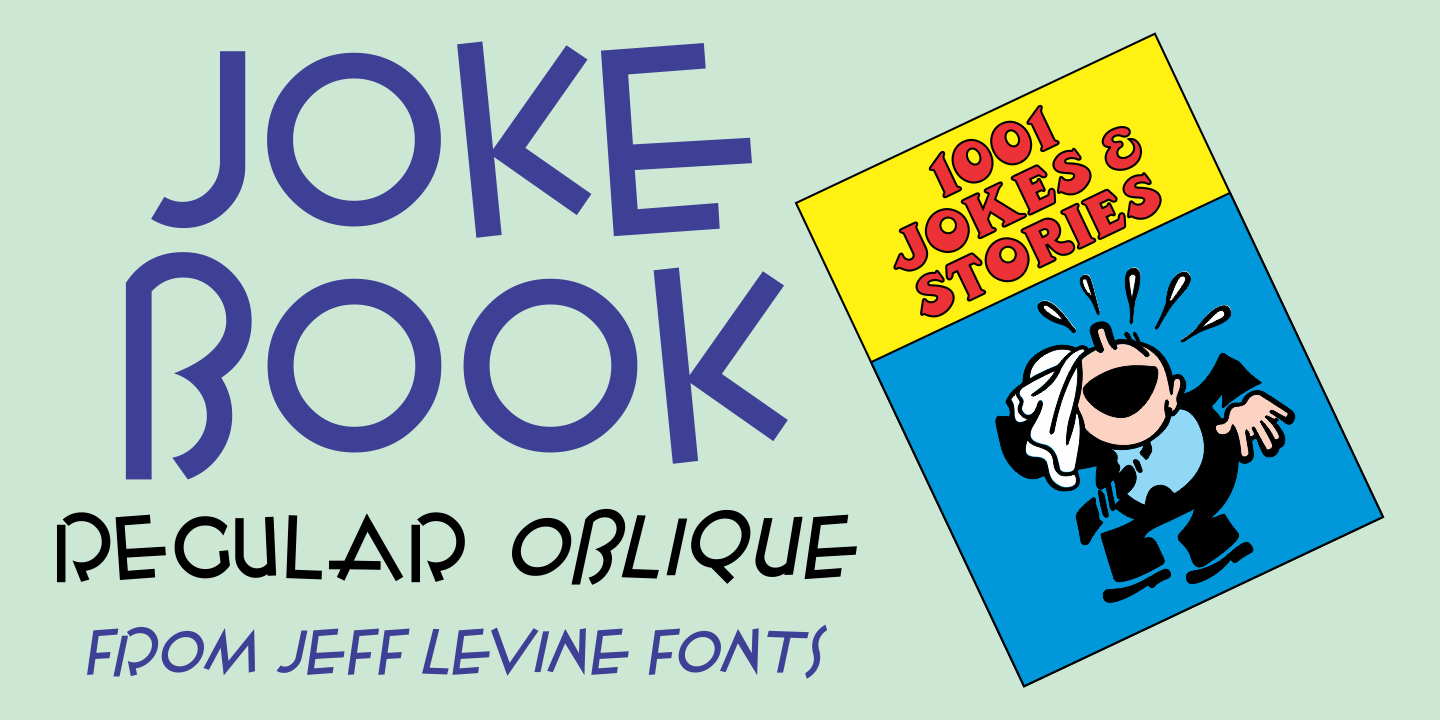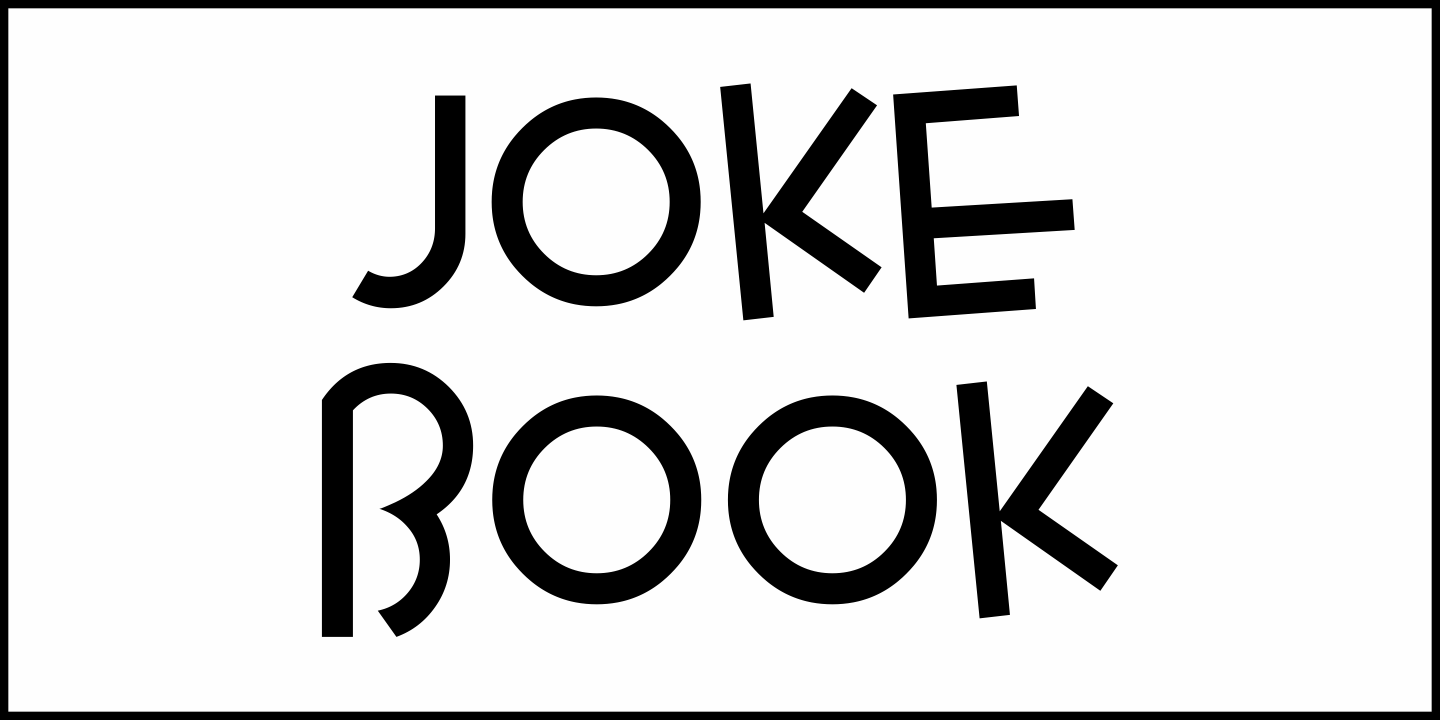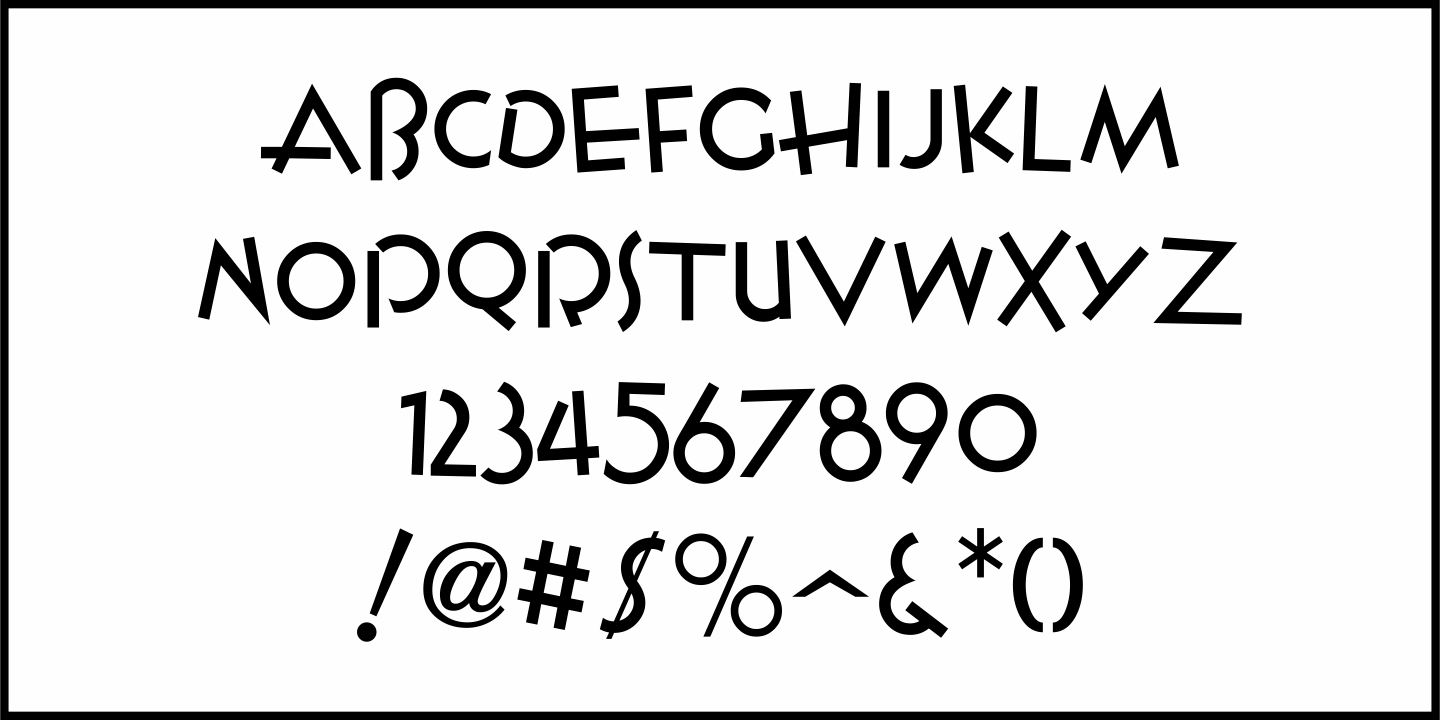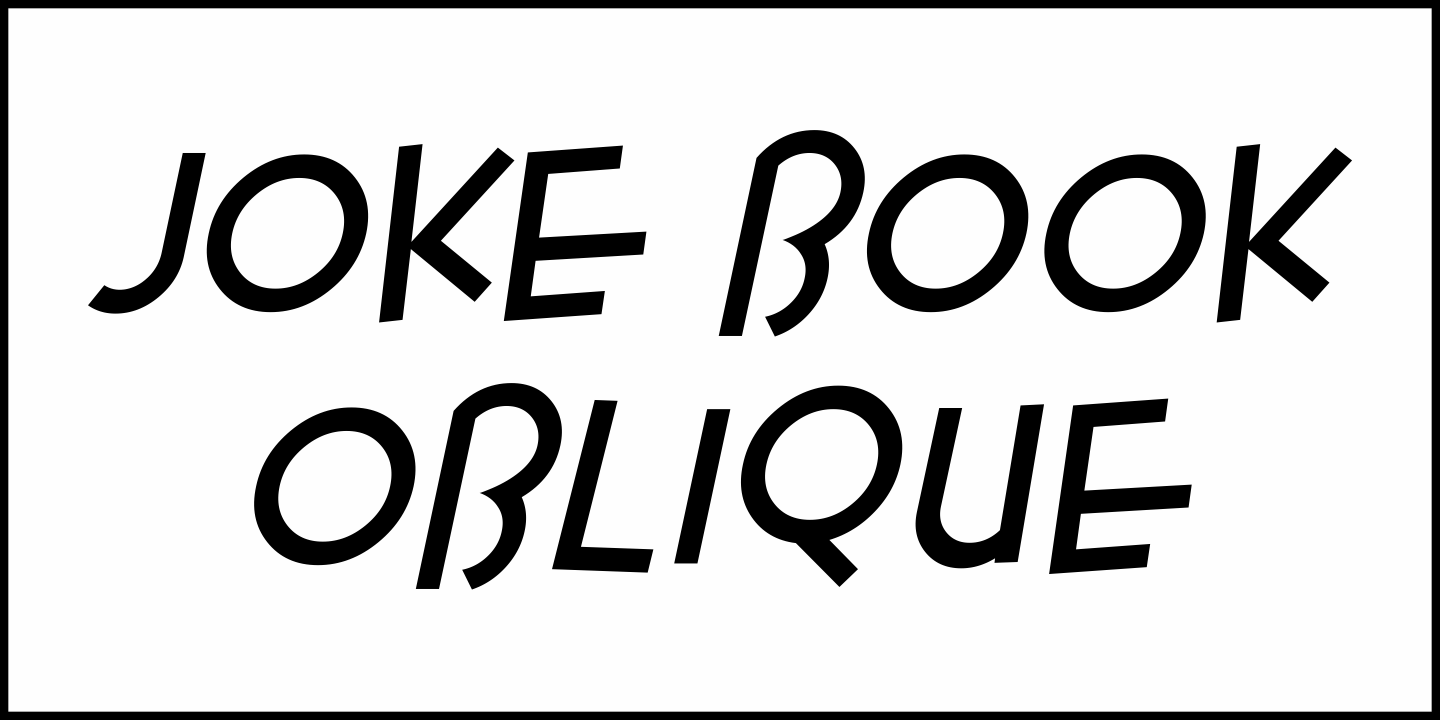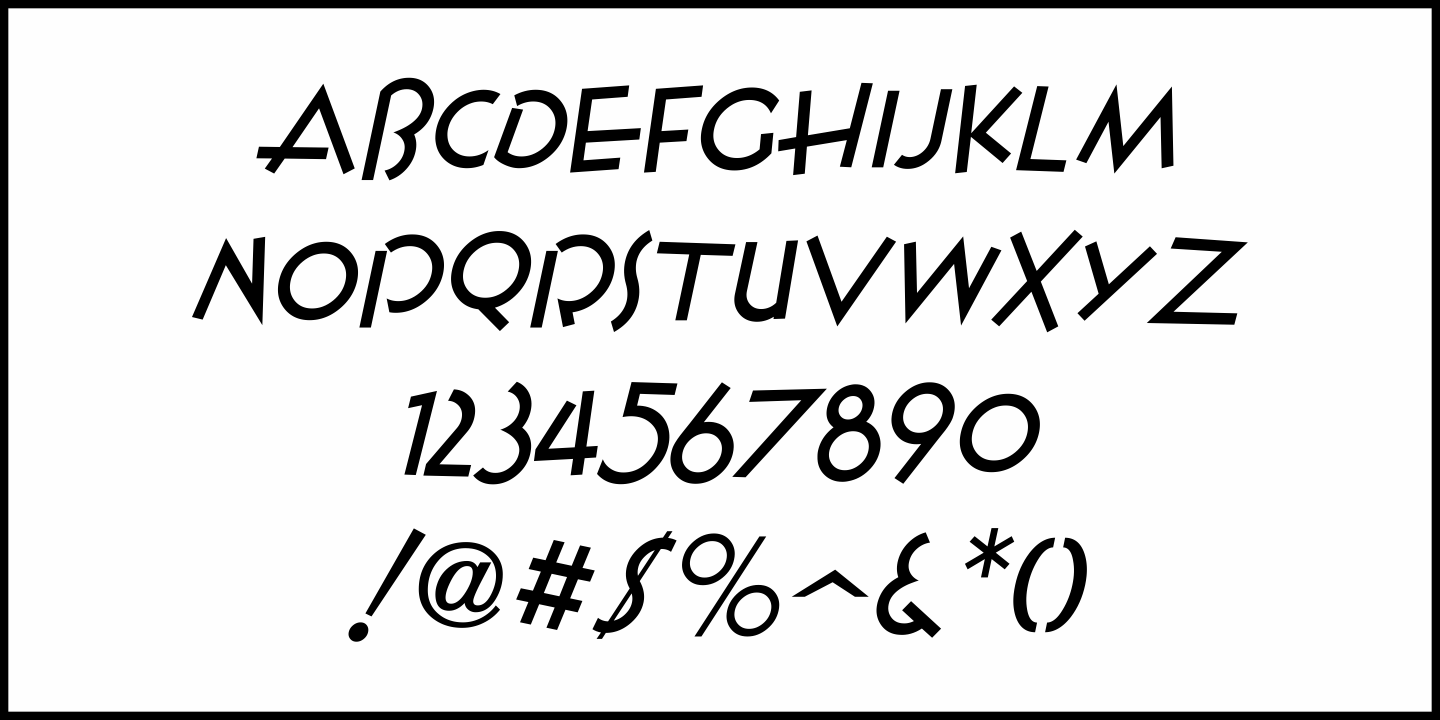
Joke Book
The playful, hand lettered sans serif of various article titles in the April, 1929 issue of Film Fun magazine inspired Joke Book JNL, which is available in both regular and oblique versions.